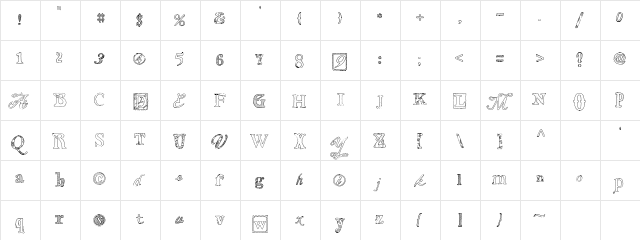
LDJ Moments in Time Regular
Design Context for LDJ Moments in Time Typeface
LDJ Moments in Time is a composed and adaptable typeface that performs quietly and consistently across a wide range of design contexts.